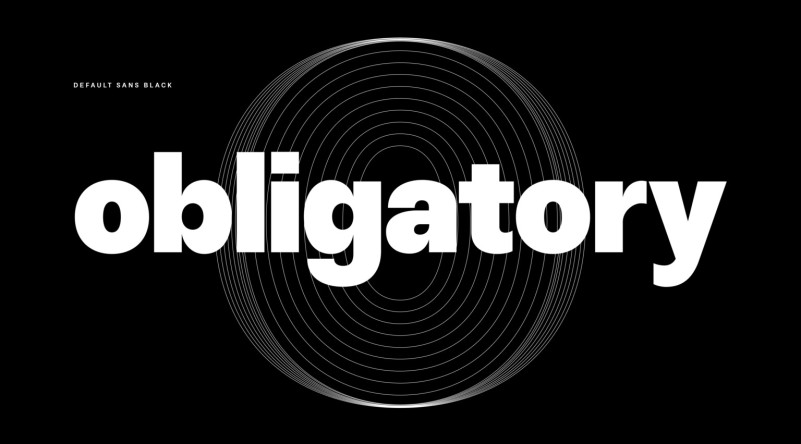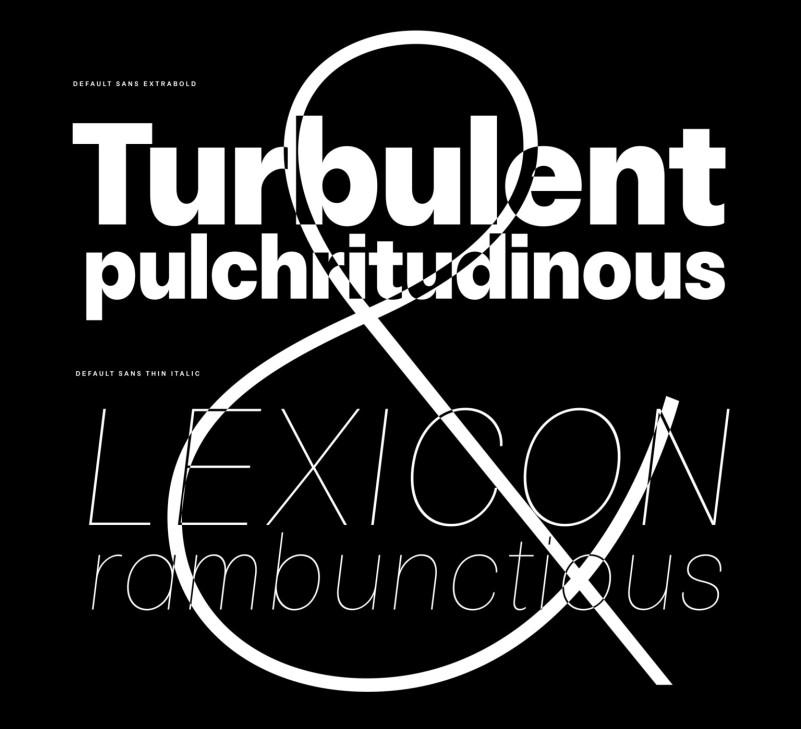
Default Sans Font
Default Sans Font is your standard neo-grotesque. It’s subtly different from most other generic sans serif. The goal was to not draw attention to itself. It gets out of the way so the words can be clear, neutral. Default Sans is reliably solid and somewhat familiar, that’s the appeal. Download/view a PDF specimen.